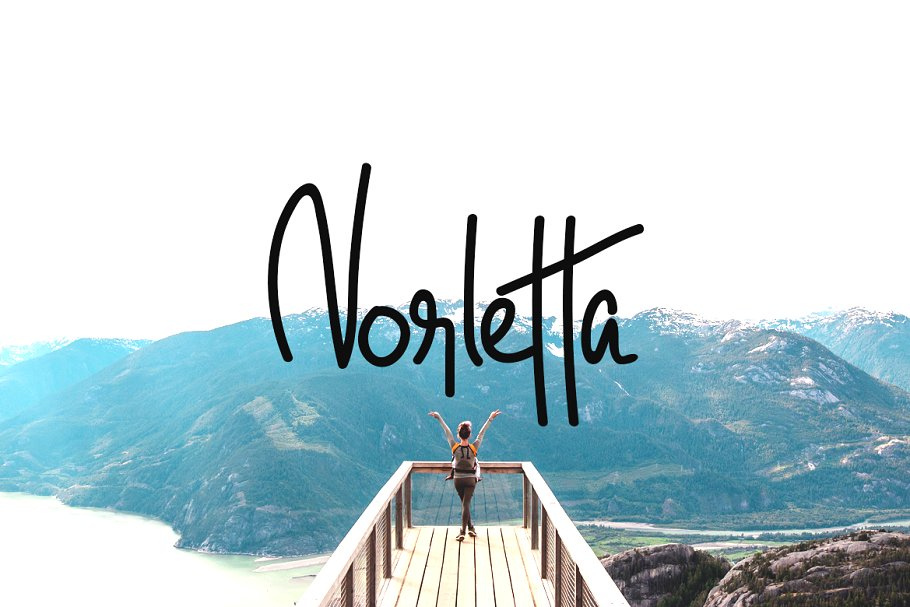
Norletta Font
Norletta Font is perfect for elegant feminine branding, sophisticated women's lifestyle magazines, graceful beauty salon identity, refined wedding planning services, charming boutique fashion labels, and delicate jewelry campaigns. Its graceful character makes it ideal for romantic event planning, upscale women's retreats, elegant spa services, sophisticated mother-daughter brands, refined floral design studios, and any project requiring feminine sophistication with gentle elegance and timeless grace appeal.
This font is exciting because it embodies the perfect balance of strength and delicacy that defines modern femininity while delivering exceptional functionality for brands celebrating women's sophistication and grace. The elegantly crafted letterforms reflect confidence without aggression, beauty without frivolity, creating typography that feels both empowering and graceful, making it ideal for organizations seeking to communicate authentic feminine strength and elegant sophistication.
The Norletta Font family typically includes Light, Regular, Medium, and Bold weights with graceful alternates, feminine ligatures, and elegant decorative elements that enhance its sophisticated personality. This comprehensive collection enables feminine brands to create authentic brand systems that maintain graceful credibility while providing flexibility for various women-focused applications requiring both strength and elegance in contemporary market positioning.
Whether you're developing identity systems for women's lifestyle brands, creating materials for elegant feminine services, or designing promotional content for sophisticated female-focused organizations, Norletta Font Free Download delivers the graceful sophistication and feminine elegance that resonates with women seeking authentic representation and refined quality. Its charming presence ensures memorable brand recognition across digital platforms and print materials, making it perfect for websites, mobile applications, and feminine campaigns that celebrate women's strength, elegant sophistication, and the beautiful balance of grace and power with contemporary femininity and authentic elegant appeal.